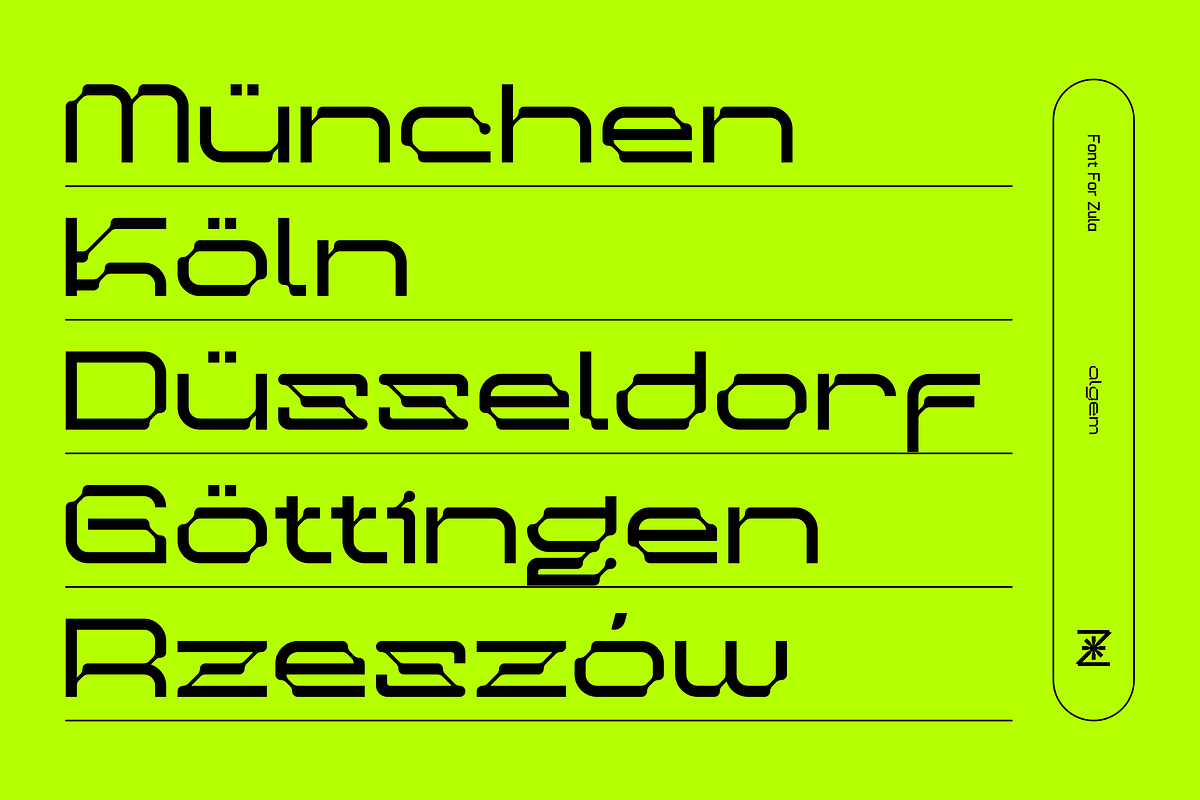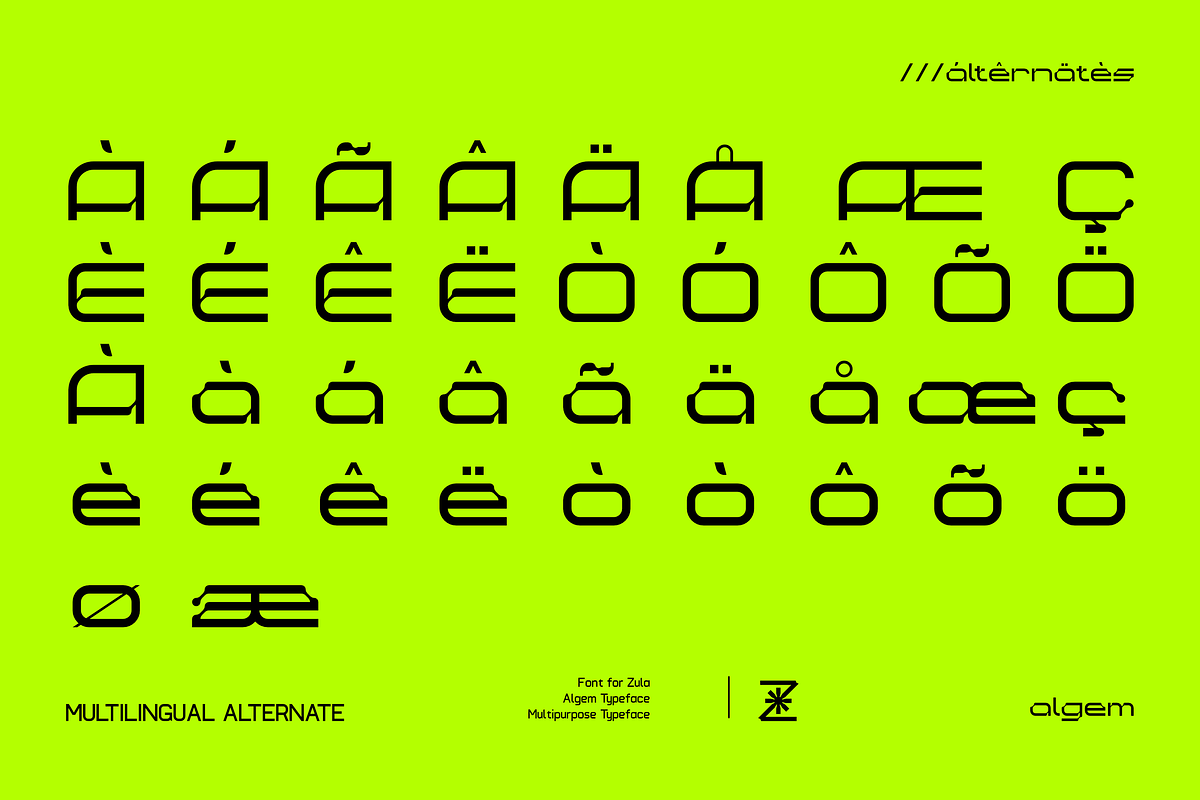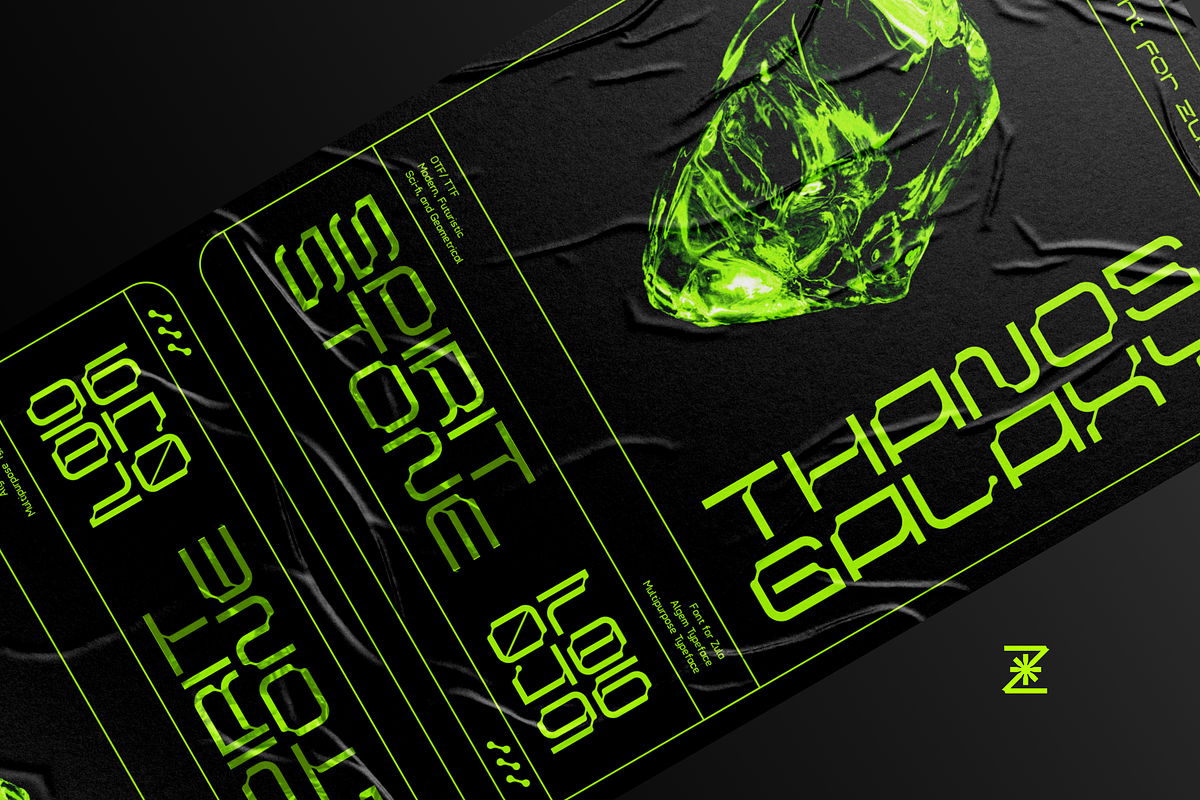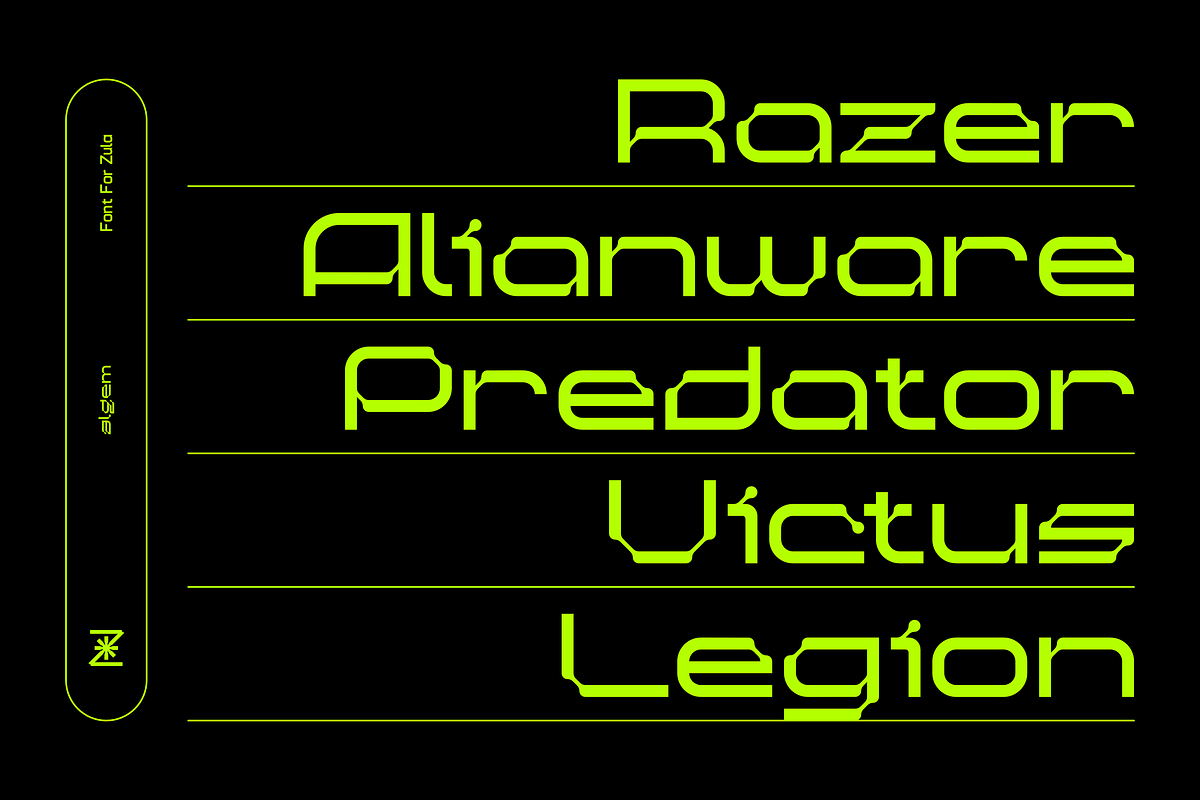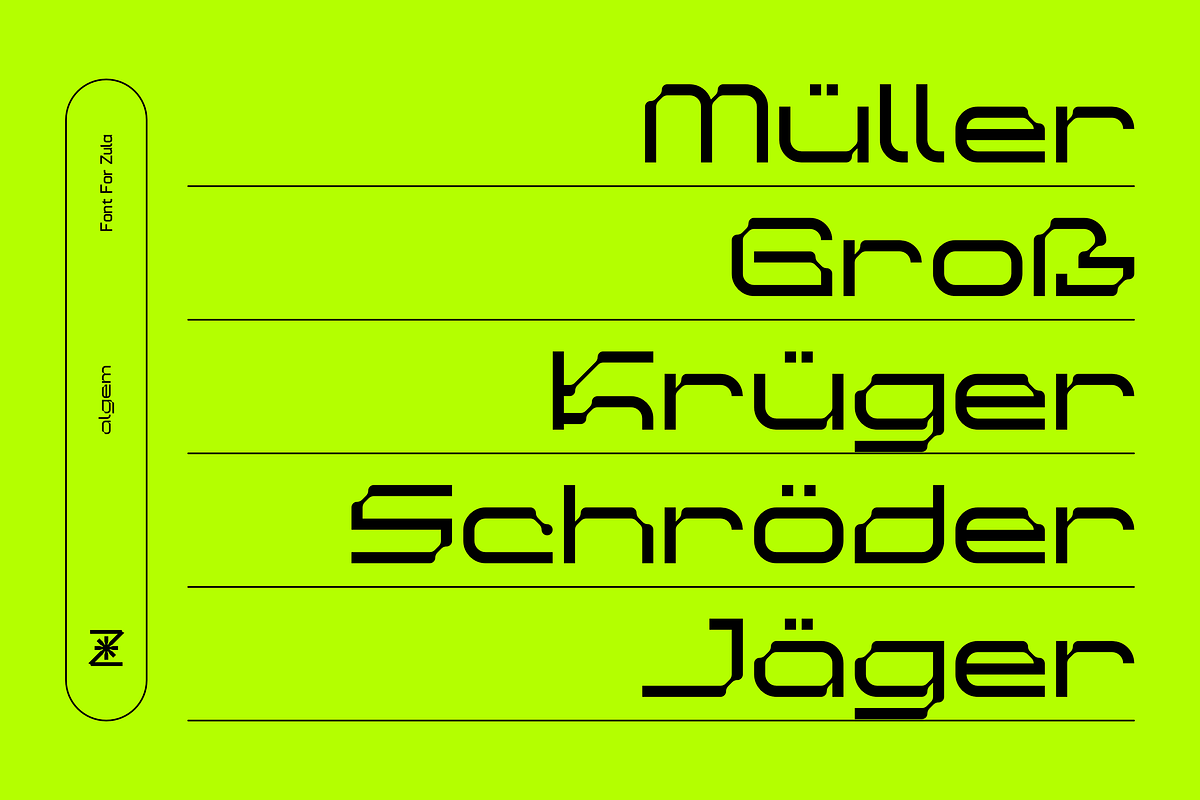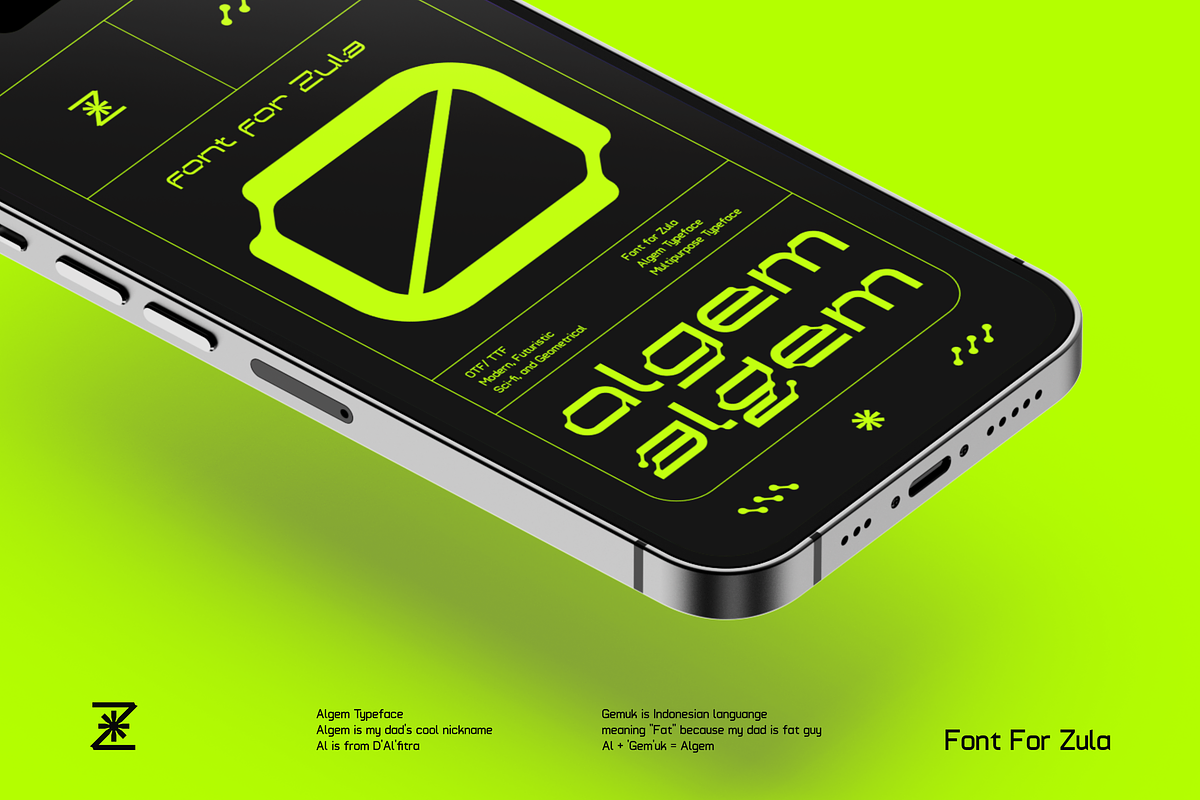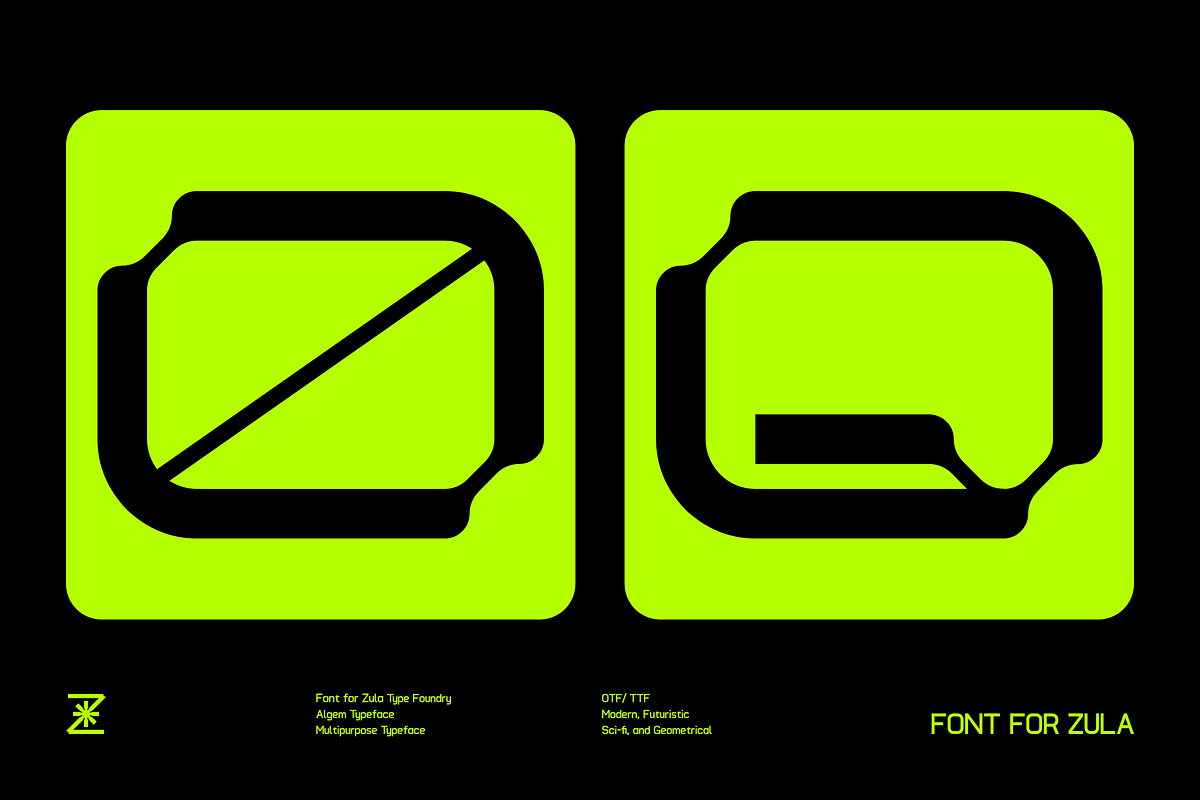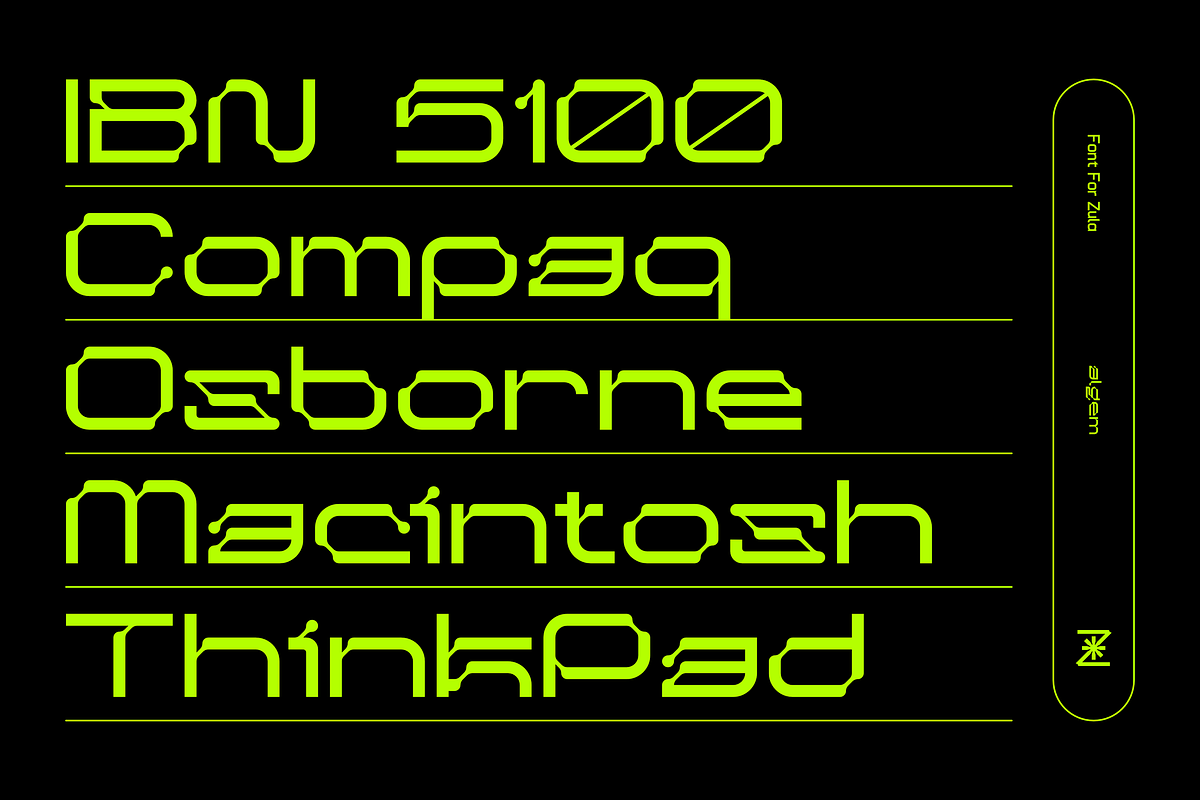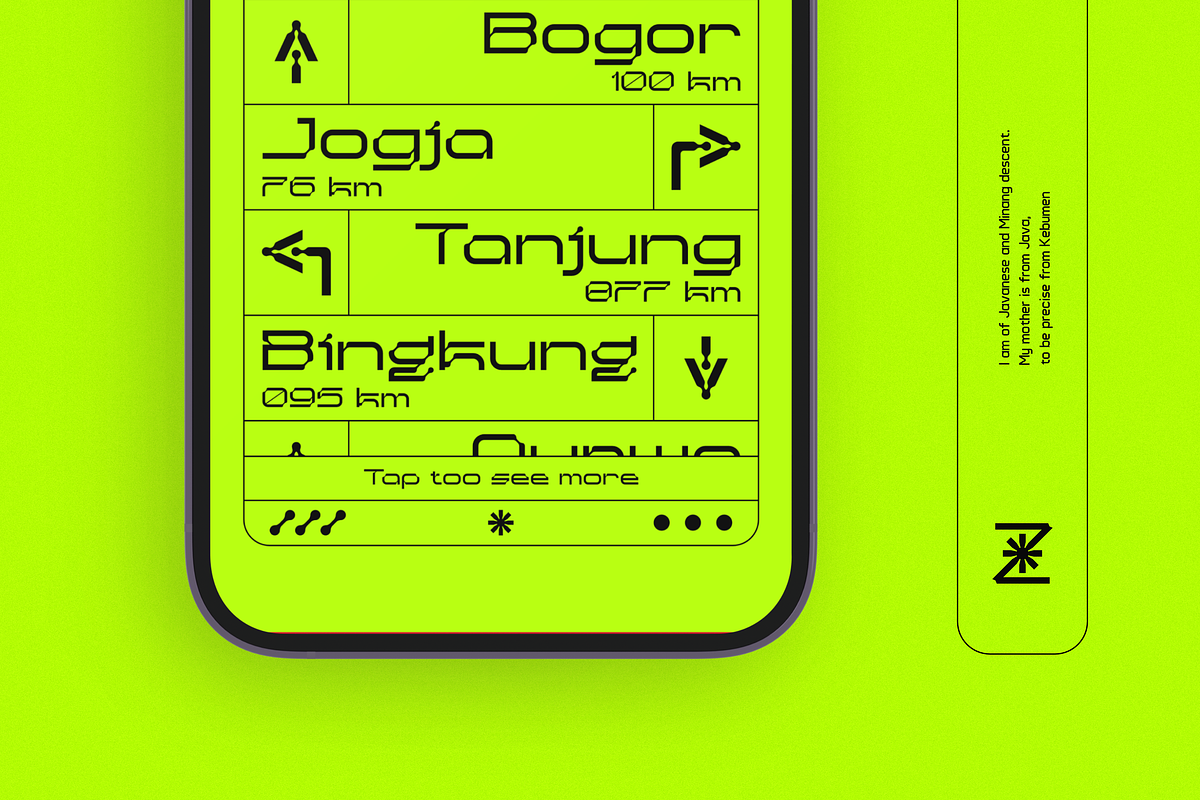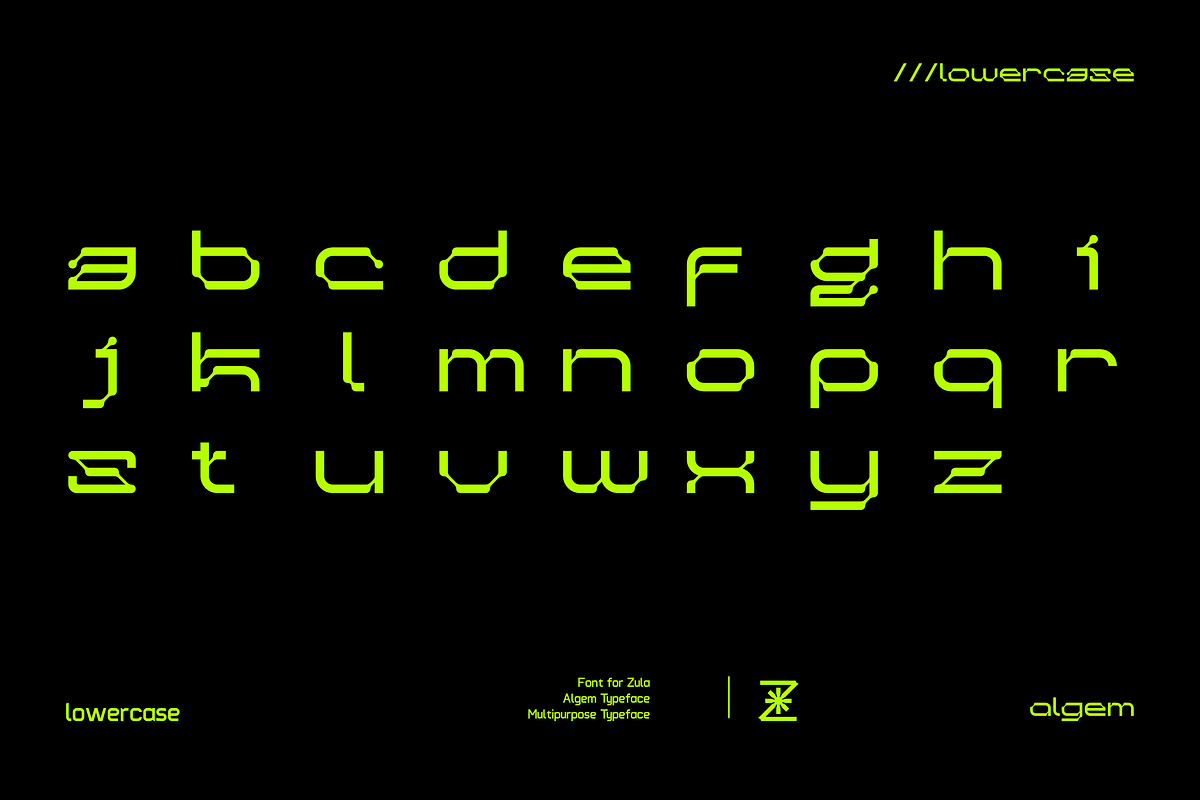
Algem - Futuristic Display Font
Algem is a multipurpose typeface that gives a futuristic and modern impression. This font is suitable for various purposes such as for brands, logos, poster, apparel, and more.
This font is a tribute typeface to the authors father. The authors father enjoyed apparel design with modern and futuristic fonts. The unique angles in some corners of the letters symbolise rebellious cancer cells to represents the authors father who was affected by cancer at the end of his life. And also the name “Algem” is the authors father’s nickname.